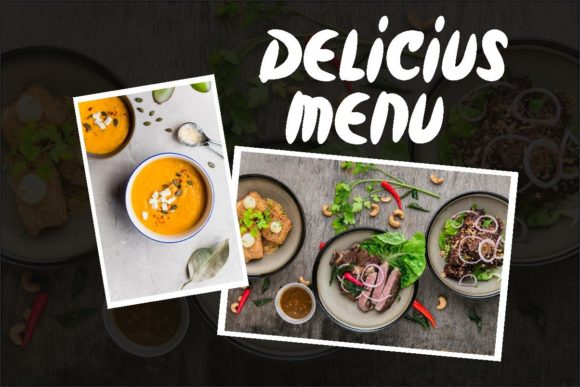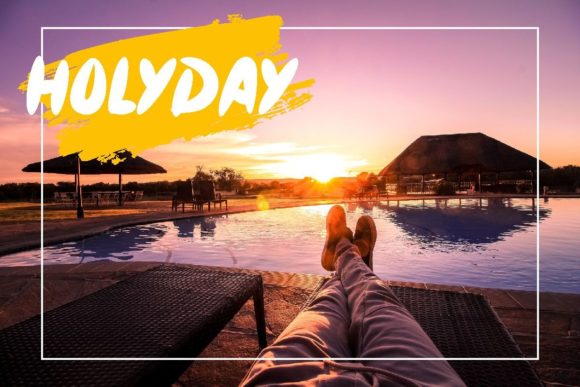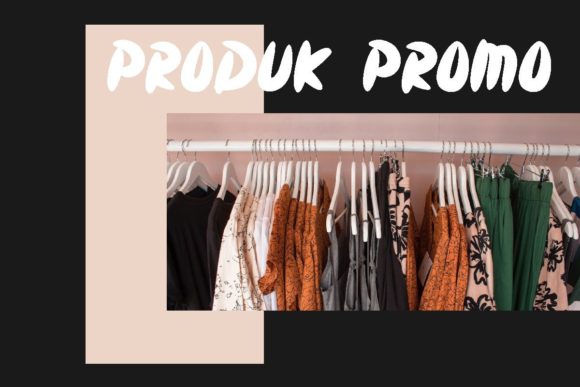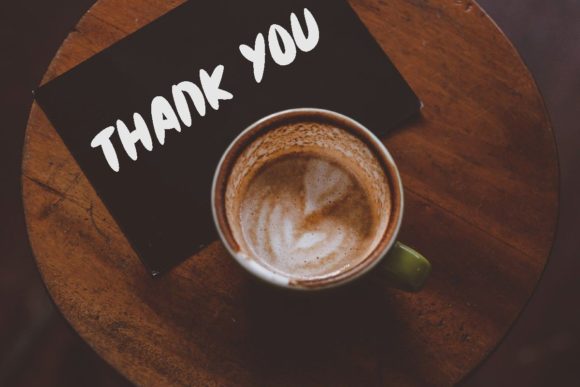
Coffee Latte Font: The Perfect Addition to Your Design Projects
Are you a designer or crafter looking for a font that can add a touch of fun and neatness to your projects? Look no further than the Coffee Latte Font! This clean, simple, and friendly display font is perfect for a variety of design ideas and is sure to elevate your work to the next level.
What is Coffee Latte Font?
Coffee Latte Font is a modern display font that is designed to be adaptable and versatile. Its clean and simple design makes it perfect for use in a wide range of projects, from branding and advertising to packaging and digital media. The font’s friendly and approachable feel makes it ideal for designers who want to add a touch of warmth and personality to their work.
Key Features of Coffee Latte Font
- Clean and Simple Design: The Coffee Latte Font features a clean and simple design that is easy to read and works well in a variety of contexts.
- Adaptable and Versatile: This font is designed to be adaptable and versatile, making it perfect for use in a wide range of projects and applications.
- Fun and Neat Touch: The Coffee Latte Font adds a fun and neat touch to any project, making it perfect for designers who want to add a bit of personality to their work.
- Display Font: This font is specifically designed as a display font, making it perfect for use in headlines, titles, and other display text.
Why Use Coffee Latte Font?
There are many reasons why designers and crafters should consider using the Coffee Latte Font in their projects. Here are just a few:
- Easily Readable: The Coffee Latte Font is easy to read, even at small sizes, making it perfect for use in a wide range of applications.
- Highly Versatile: This font is highly versatile and can be used in a wide range of projects, from branding and advertising to packaging and digital media.
- Adds Personality: The Coffee Latte Font adds a touch of personality and warmth to any project, making it perfect for designers who want to create a unique and memorable brand identity.
- Easy to Pair: This font is easy to pair with other fonts, making it perfect for use in projects where multiple fonts are used.
How to Use Coffee Latte Font
Using the Coffee Latte Font in your design projects is easy! Here are a few tips to get you started:
- Use it as a Display Font: The Coffee Latte Font is specifically designed as a display font, so use it to add a touch of personality to your headlines and titles.
- Pair it with Other Fonts: This font is easy to pair with other fonts, so don’t be afraid to experiment and find the perfect combination for your project.
- Use it in Branding and Advertising: The Coffee Latte Font is perfect for use in branding and advertising projects, where its friendly and approachable feel can help to create a memorable brand identity.
- Experiment with Different Sizes and Colors: Don’t be afraid to experiment with different sizes and colors of the Coffee Latte Font to find the perfect look for your project.
In conclusion, the Coffee Latte Font is a clean, simple, and friendly display font that is perfect for designers and crafters looking to add a touch of fun and neatness to their projects. Its adaptable and versatile design makes it perfect for use in a wide range of applications, from branding and advertising to packaging and digital media. With its highly readable design, ease of use, and ability to add personality to any project, the Coffee Latte Font is a must-have for any designer or crafter looking to elevate their work to the next level.